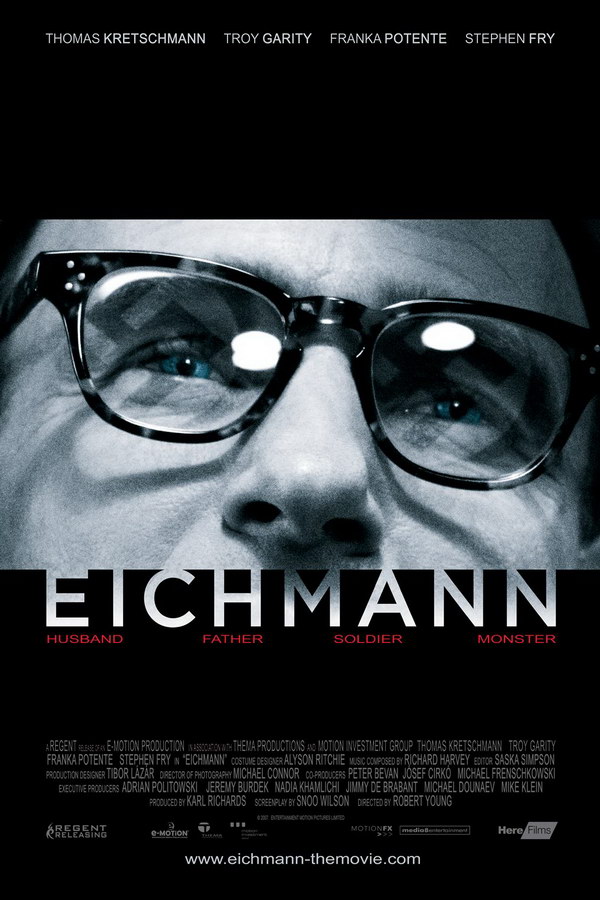
Eichmann Font
Fonts in UseEichmann is a 2018 historical drama film based on the real-life story of Adolf Eichmann, a high-ranking Nazi officer who orchestrated the Holocaust. The film follows the capture and trial of Eichmann in Israel, highlighting the moral and legal complexities of seeking justice for war crimes.
The movie title "Eichmann" is designed based on a font known as Gotham Medium. Gotham is a geometric sans created by Tobias Frere-Jones in 2000. Further information about this font can be found here